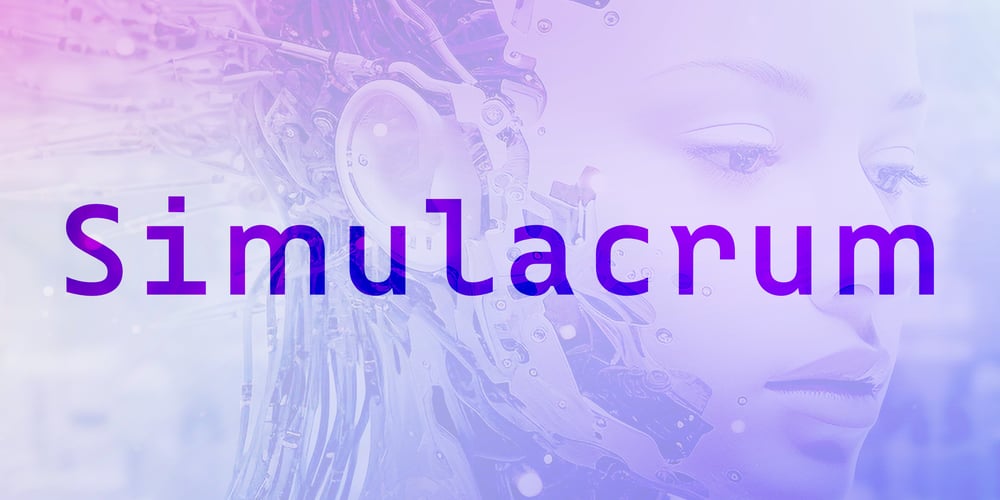
HK Simulacrum Font Family was designed by Alfredo Marco Pradil and published by Hanken Design Co.. HK Simulacrum contains 4 styles and family package options. HK Simulacrum typeface emerges as a meticulously crafted solution for the tech and coding world, seamlessly merging the precision of a monospaced coding font with the readability of a traditional textface. It has two flavors: Duo and Mono, where Duo is the duospaced version and Mono is the monospaced version. Its design prioritizes clear glyph differentiation, balanced spacing, and optimized leading to minimize eye strain during long hours of screen reading. By ensuring that each character is distinct and easy to read, HK Simulacrum not only reduces the risk of coding errors but also enhances the overall user experience, making it an ideal choice for developers and tech professionals who demand both functionality and comfort.HK Simulacrum Duospaced is a refined variant of the original Simulacrum typeface, engineered with 1.5x wider characters for select glyphs such as W, w, M, m, ©, ®, AE, OE, and the ellipsis. This deliberate expansion provides enhanced negative-space balance, allowing each character to breathe and reducing visual clutter. The increased width improves overall legibility and minimizes eye strain during prolonged reading and coding sessions, as the more spacious design makes it easier to distinguish intricate details. Importantly, while the characters are wider, the typeface retains its signature “tech” and “coding” aesthetic—preserving the monospaced precision and clarity that developers value, but with a modern twist that boosts readability and comfort.HK Simulacrum Monospaced is a dedicated version of the HK Simulacrum typeface crafted specifically for coding environments where uniformity is key. Every glyph occupies the same fixed width, ensuring that lines of code align perfectly, which is critical for reading and debugging. This consistent spacing minimizes distractions and visual clutter, allowing developers to focus on syntax and structure with ease. The monospaced design reinforces the traditional “tech” and “coding” aesthetic, while its refined clarity and balanced character forms contribute to a smoother reading experience and reduced eye strain during extended sessions.